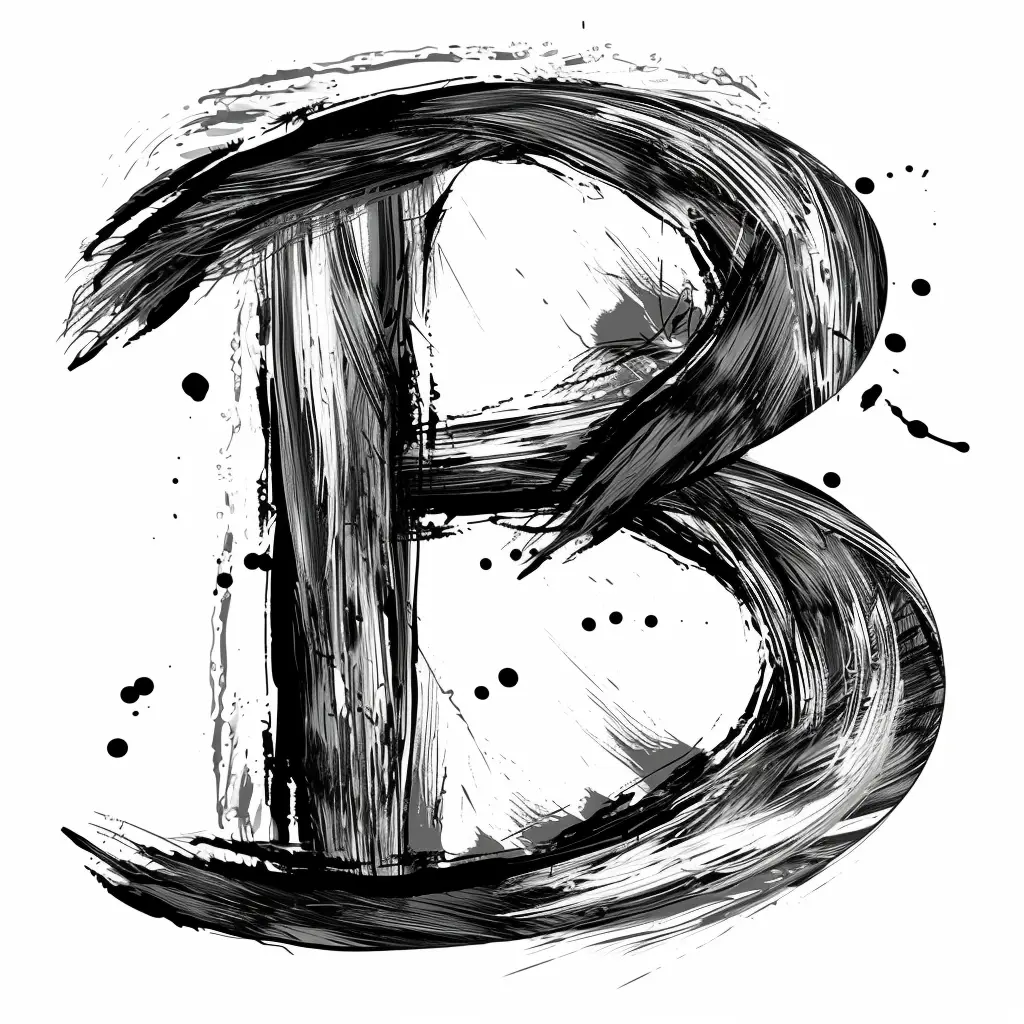
This image features a stylized, artistic representation of the letter "B," rendered in a bold, brushstroke-inspired style. The design uses varying shades of black and gray, with dynamic, textured strokes and scattered ink splatters, creating a dramatic, hand-painted effect against a light gray background. The letter’s form is fluid and expressive, emphasizing movement and artistic flair through its layered, painterly details.